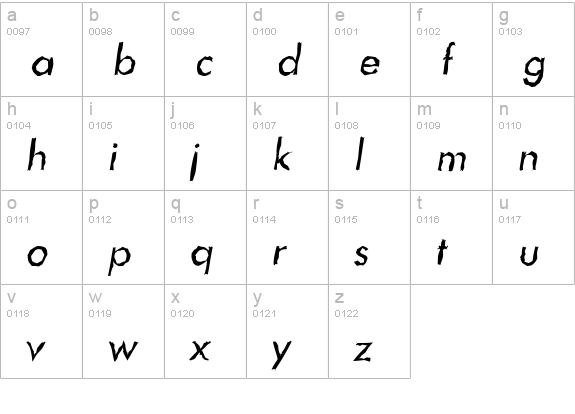
LimerickRandom-Italic is a distinctive, italic variant in the LimerickRandom typeface family \xE2\x80\x94 well suited to design and typography projects.
LimerickRandom-Italic font is a whimsical and playful typeface that adds a touch of charm to any design project. Its italicized style gives a dynamic and modern twist to traditional typography. The flowing lines and quirky angles of this font make it perfect for adding a unique flair to invitations, posters, and branding materials. Whether you're looking to make a statement or simply add a touch of fun to your designs, LimerickRandom-Italic is the perfect choice. Best of all, LimerickRandom-Italic is available for free download at FontsMarket.com. This means you can easily access this delightful font and start using it in your projects right away. Don't miss out on the opportunity to enhance your designs with this versatile and eye-catching typeface. Download LimerickRandom-Italic today and let your creativity shine!